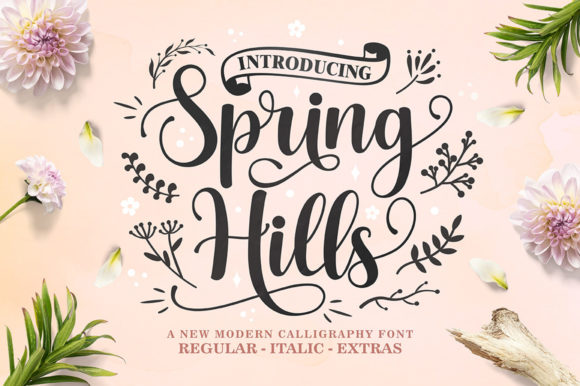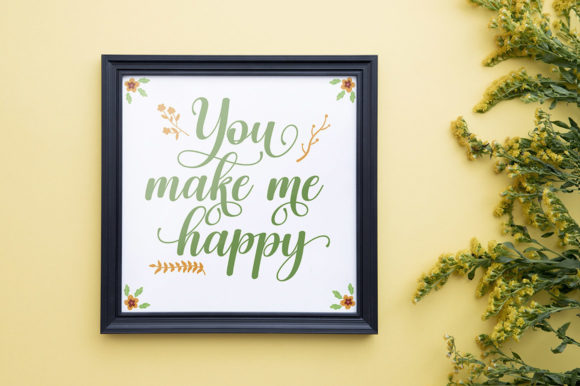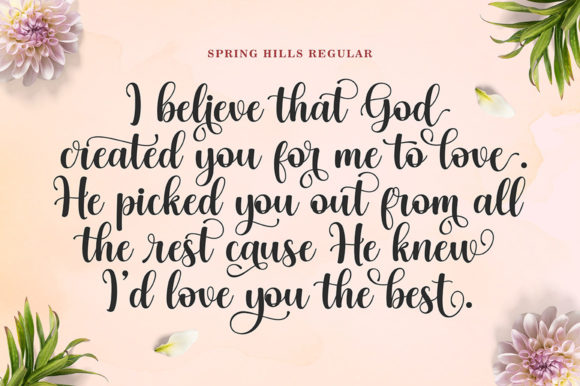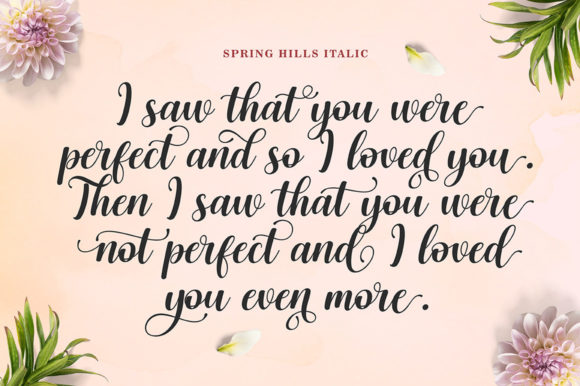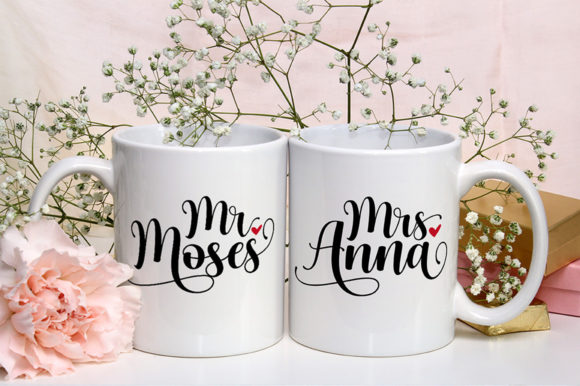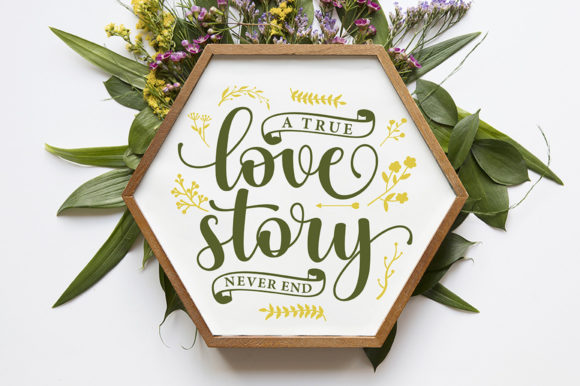
Spring Hills Font
About Spring Hills Font
Spring Hills is a romantic script font. This font is neatly crafted and highly detailed. Whatever the topic, this font will be a wonderful asset to your font library, as it has the potential to enhance any creation. Spring Hills is PUA encoded which means you can access all of the glyphs and swashes with ease!